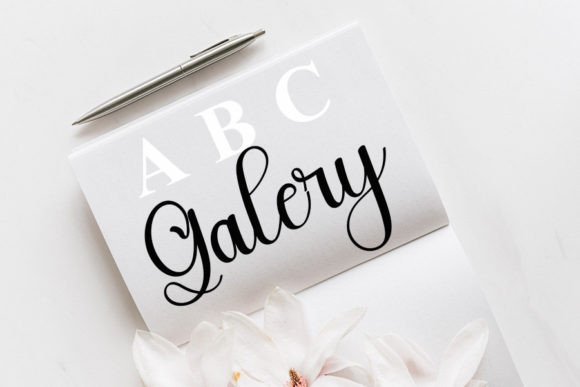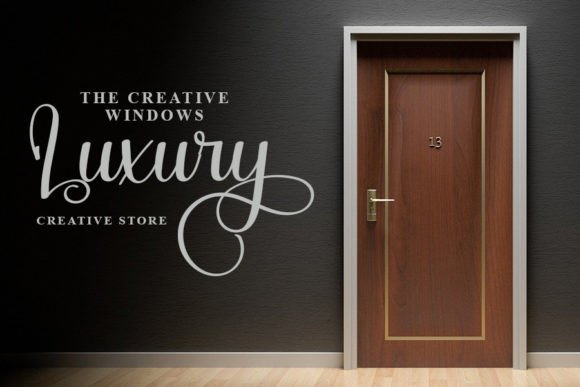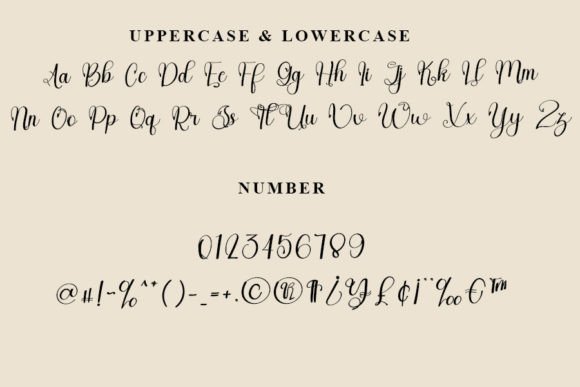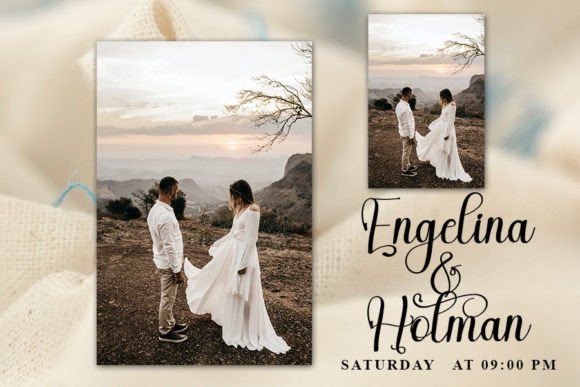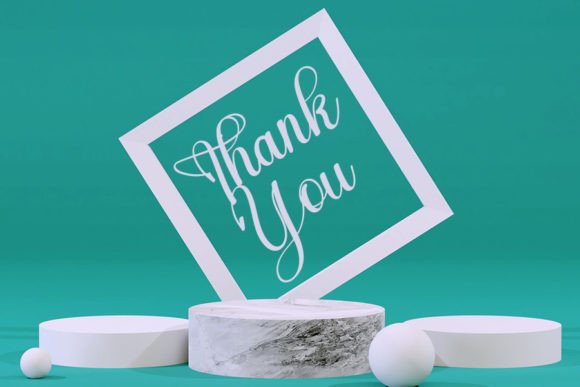
Introduction to Omighty Font
Omighty is a stylish handwritten font with a contemporary atmosphere and impeccable form, inspired by timeless classic calligraphy.
Balanced and varied, this font was designed to enhance the beauty of your projects This font is PUA encoded, which means you can access all of the amazing glyphs and ligatures with ease.